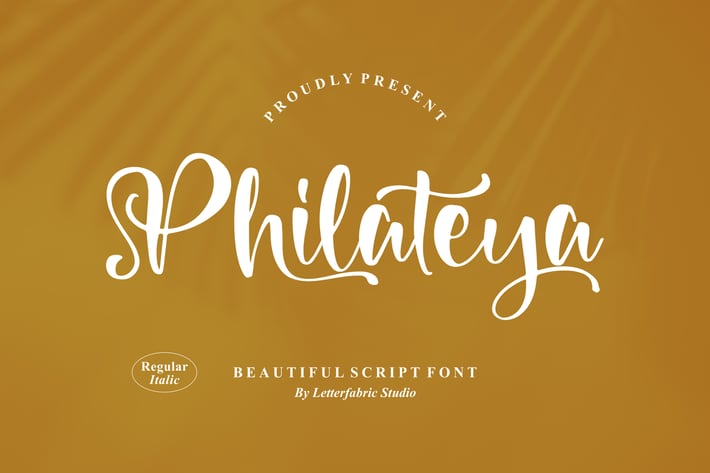
Philateya Script Font
Philateya is a beautiful handwritten script font with a modern classic twist. Featuring smooth curves and extended swashes, this font evokes a romantic and high-end feel—perfect for elegant branding, wedding stationery, and social media graphics.
With Regular and Italic styles, plus ligatures and stylistic alternates, Philateya gives you the flexibility to create unique, flowing typography across both print and digital designs.